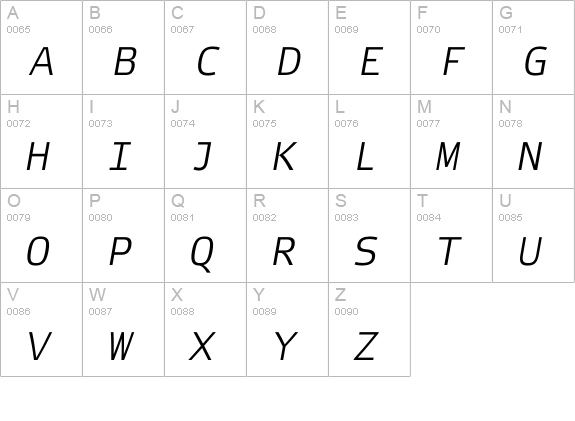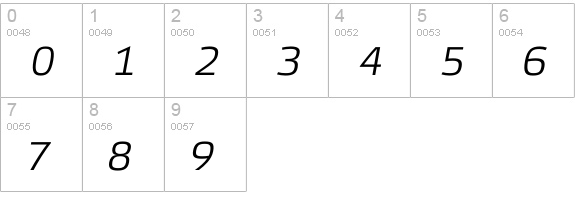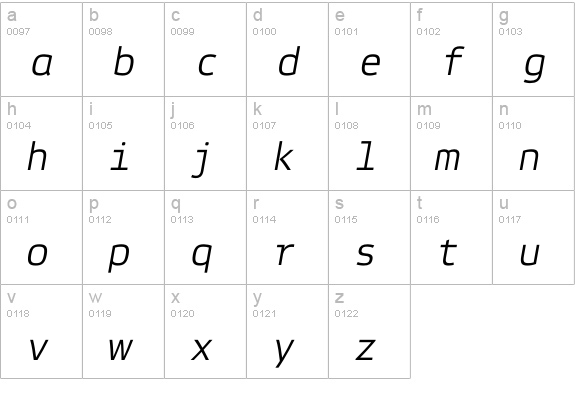
Etelka Monospace Pro Italic Font Details
Etelka Monospace Pro Italic is a distinctive, italic variant in the Etelka typeface family \xE2\x80\x94 well suited to design and typography projects.
Etelka Monospace Pro Italic font is a modern and sleek typeface that exudes professionalism and sophistication. With its distinct slanted style, this font is perfect for adding a touch of elegance to any design project. The italicized characters provide a unique flair while maintaining readability and clarity. What sets Etelka Monospace Pro Italic font apart is not only its aesthetic appeal but also its versatility. Whether used in print or digital media, this font enhances the overall visual impact of any text. Its clean lines and balanced spacing make it ideal for creating a polished and refined look. Best of all, Etelka Monospace Pro Italic font is available for free download at FontsMarket.com. This means that you can easily incorporate this stylish font into your projects without any additional cost. Don't miss out on the opportunity to elevate your designs with the sophisticated charm of Etelka Monospace Pro Italic font – download it today!